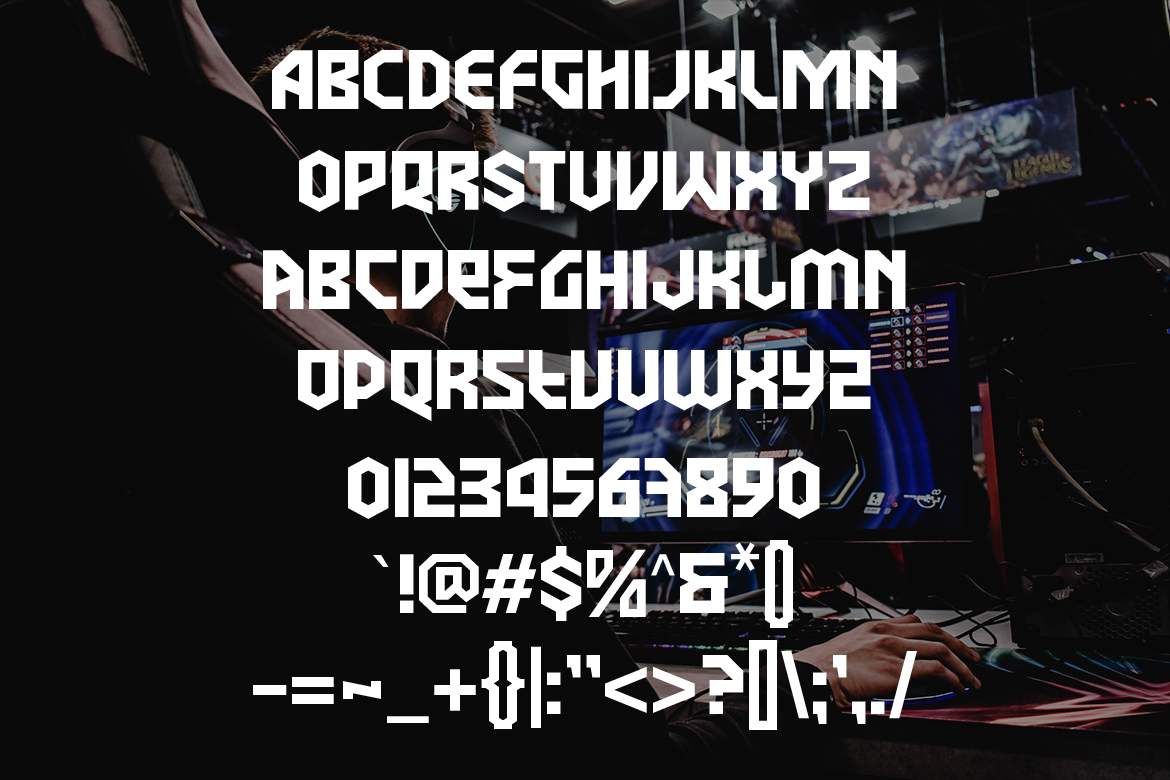
Awesome Herona Font References. Web download mareka font · free for personal use · terms of useby downloading or using our font, you are read and accepted to the our term and use agreement :this font is. Font logo herona yang berani dan kuat didasarkan pada konsep logo esports dan game yang sedang tren.
You can find more information. Web herona (purchase only) a popular font style among gamers and streamers, herona is a font style that comes with unique shapes and styles. It was hand drawn with a brush pen.
Inspired by retro, horror and 80's style artworks and music. Your easiest one way to go for your gaming branding, esports logo, streaming overlay design, gaming logo, etc. Web herona fontis specifically crafted based on the trending esports and gaming logo concept.
This Font Is Inspired By The Letters Of The Past That Are Very Beautiful And Combined With A Modern.
Herona Is Specifically Crafted Based.